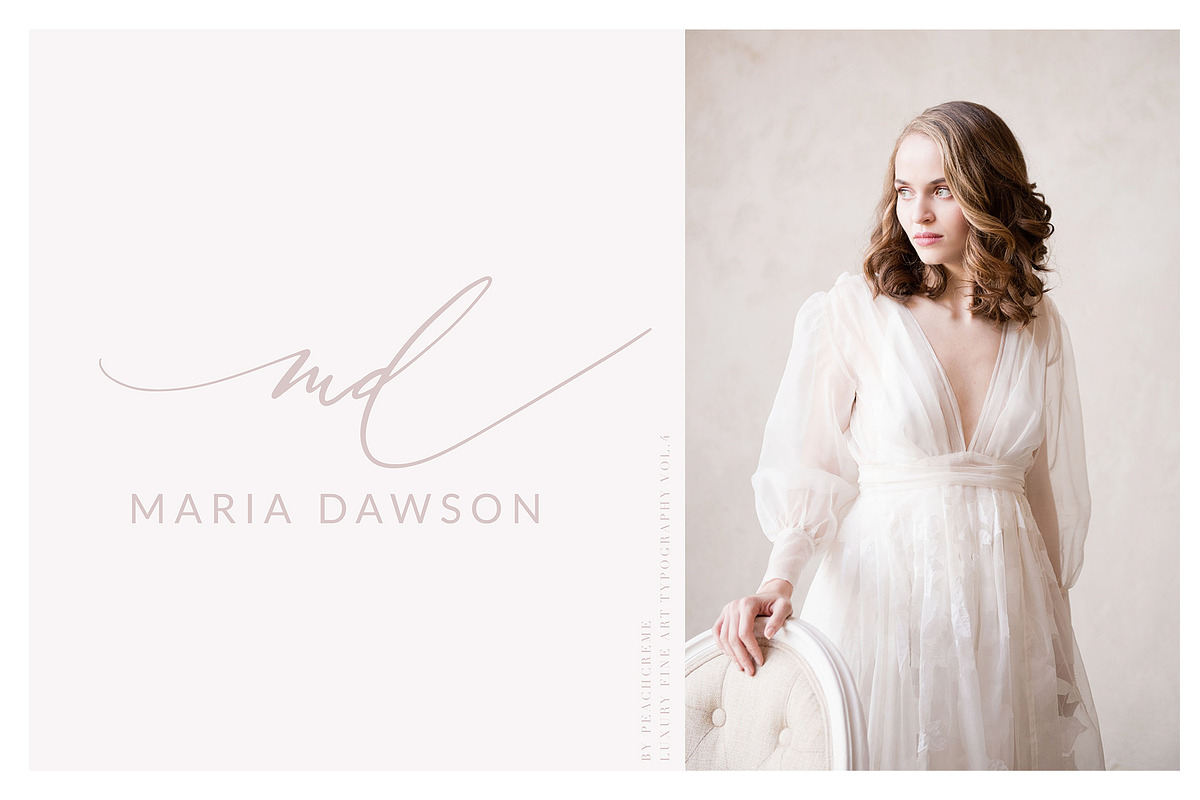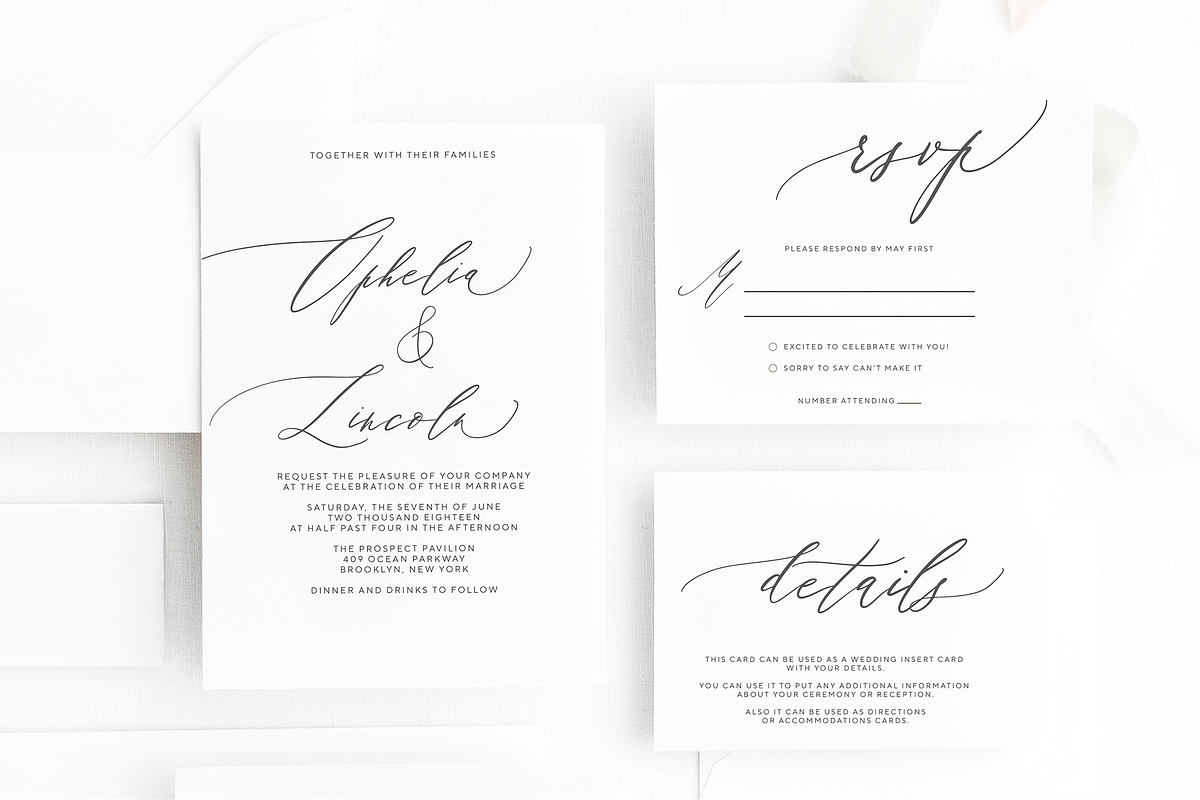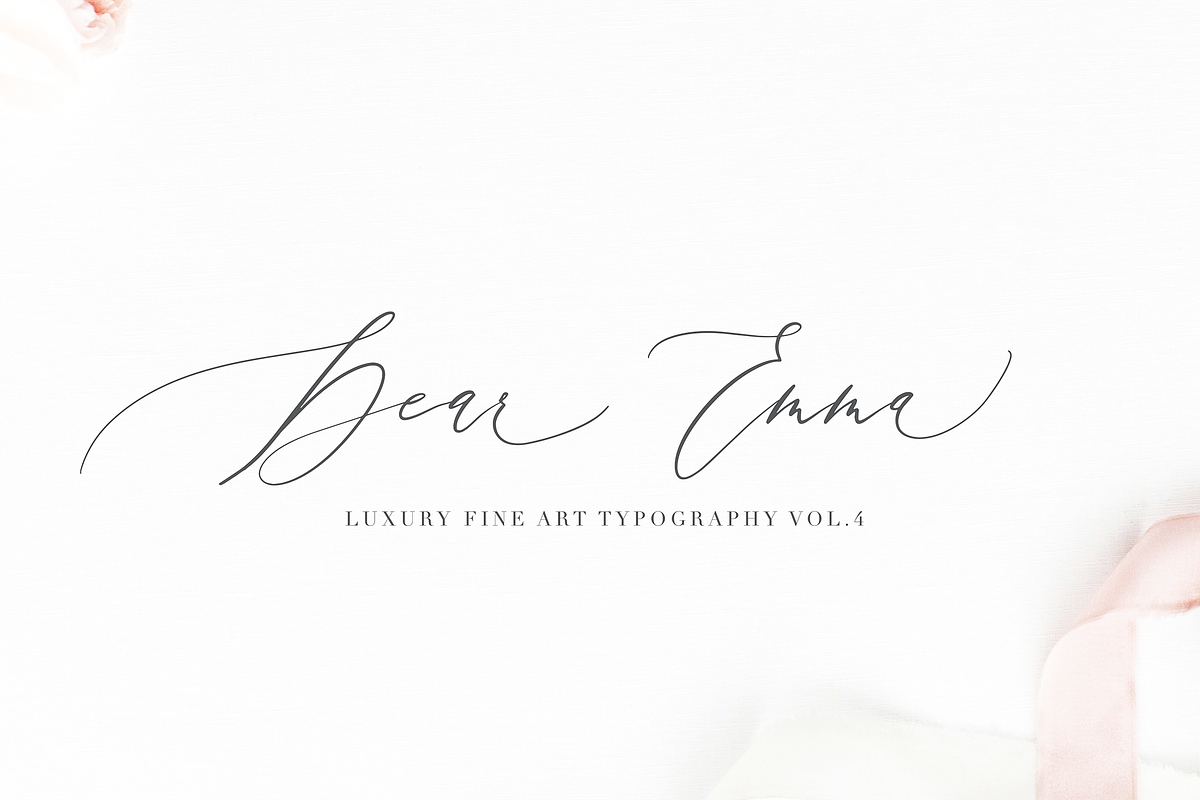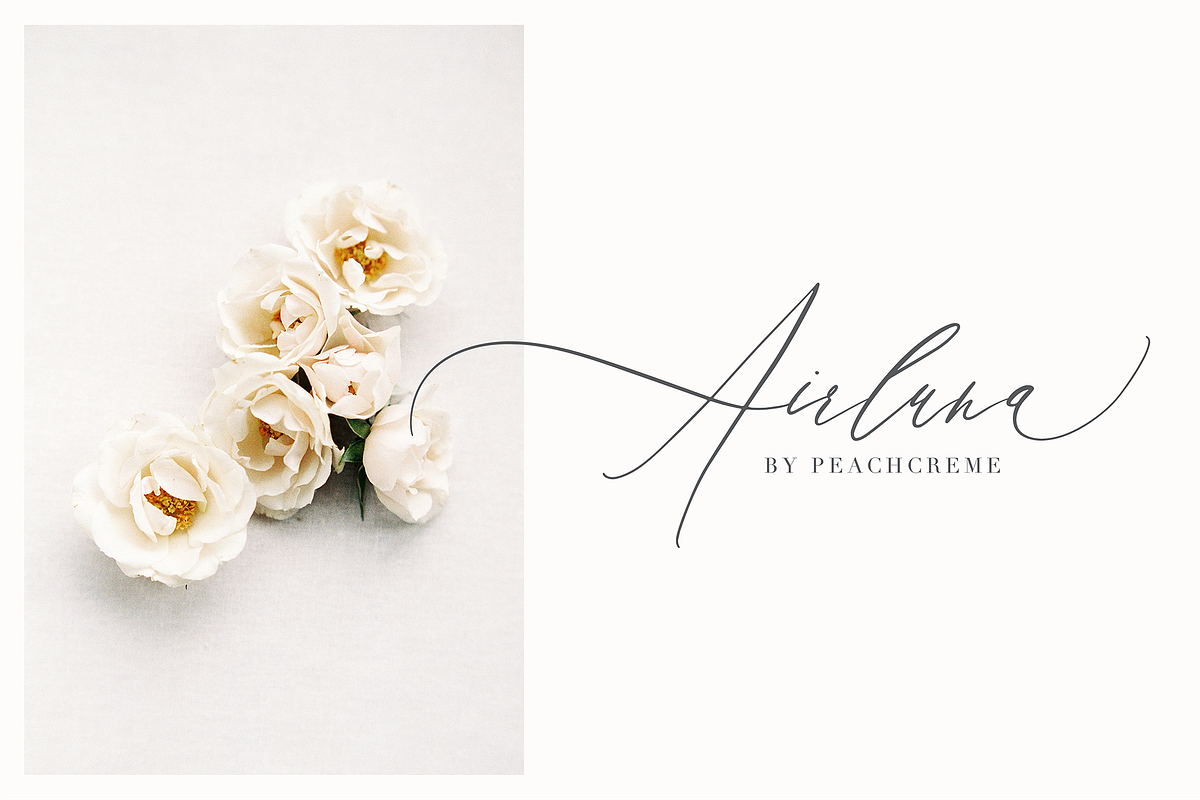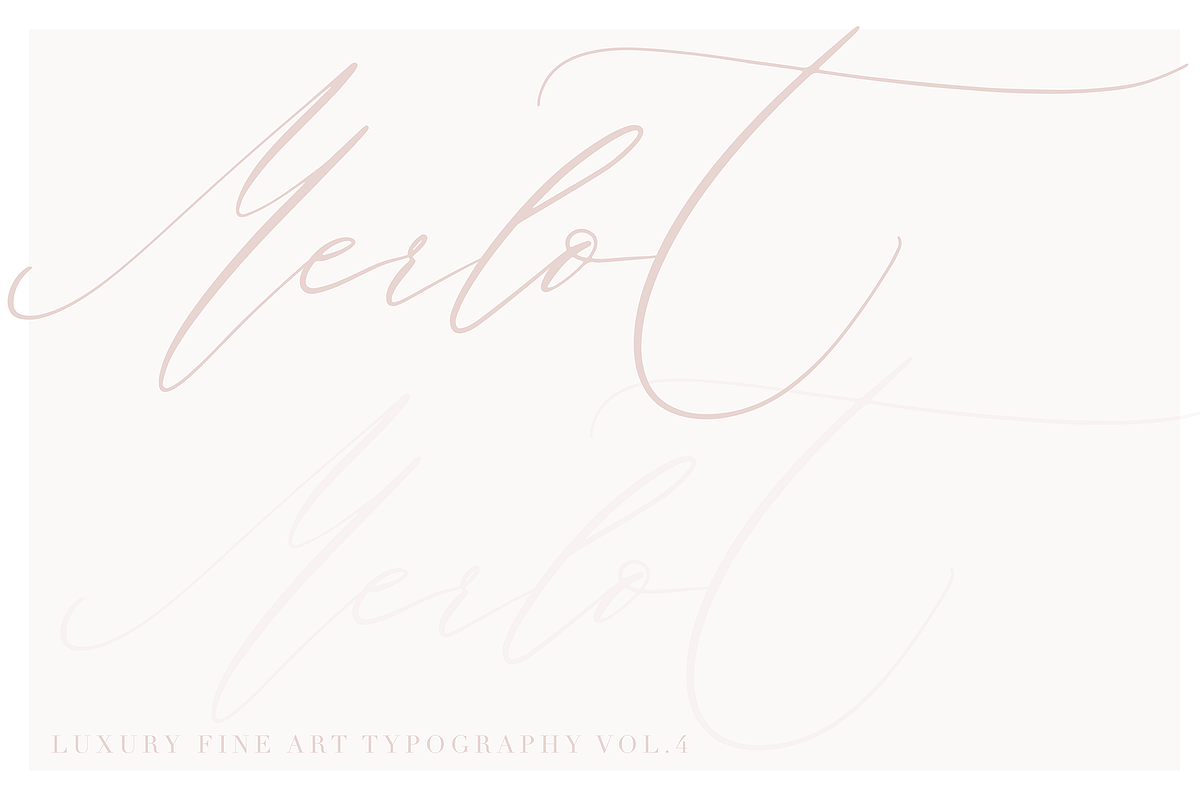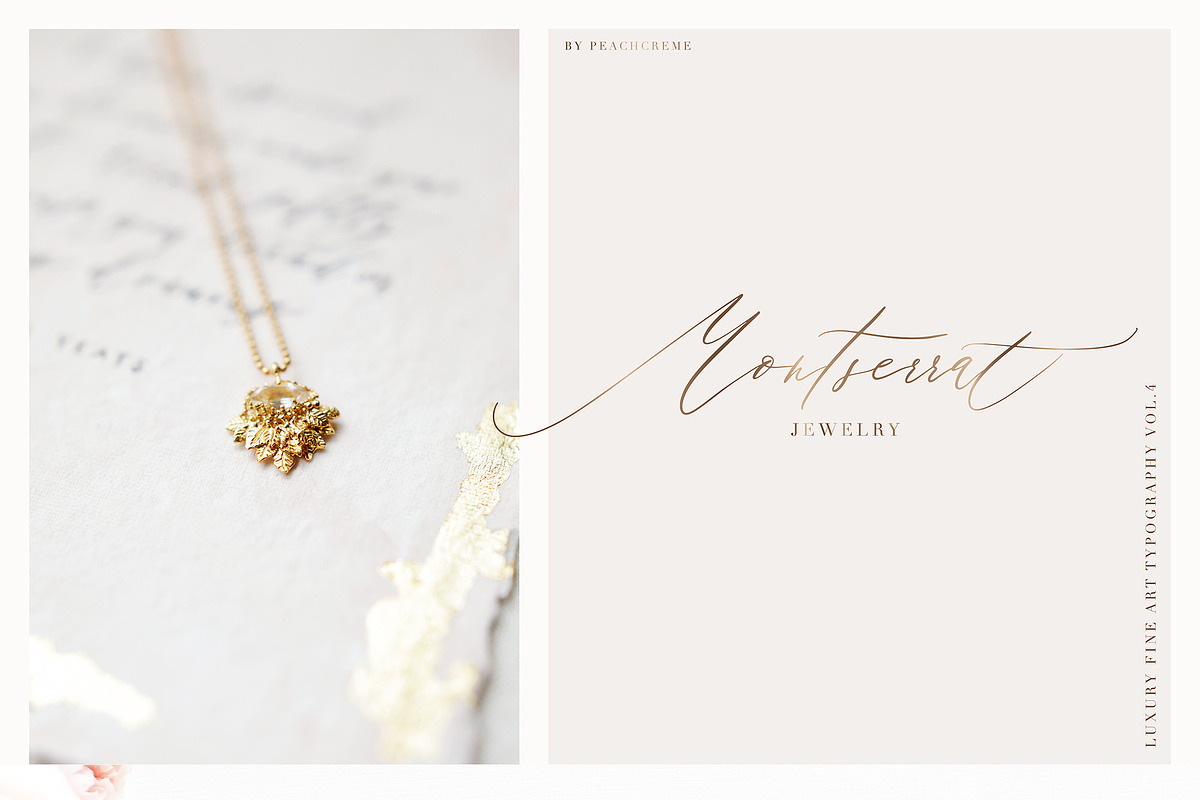
Adora Bouton-Luxury Script
LUXURY FINE ART TYPOGRAPHY VOL.4 Adora Bouton is a crème de la crème modern calligraphy font with contemporary, sophisticated accents. It is perfect for branding, wedding invites and cards, and maybe for red wine label.
Adora Bouton includes full set of gorgeous uppercase and lowercase letters, numerals, a large range of punctuation and ligatures. All lowercase letters include beginning and ending swashes, giving realistic hand-lettered style. All uppercase letters include beginning swashes, that makes the font look fabulous!
- File With AdoraBoutonSwashes1 contains beginning UPPERCASE and ending lowercase swashes. For example: If you write "Madison": you should select beginning "M" and ending "n" and choose AdoraBoutonSwashes1 font. Inside letters :"adiso" would be in normal Adora Bouton font Numbers 2345 contains different styles of t.
- File with AdoraBoutonSwashes2 contains beginning lowercase and other alternative letter style.
This is a very nice font that my clients love. However, for printing their invitation envelopes with guest addressing it is a real pain. Names with ligatures like "tt" look horrible as there are two crossbars.